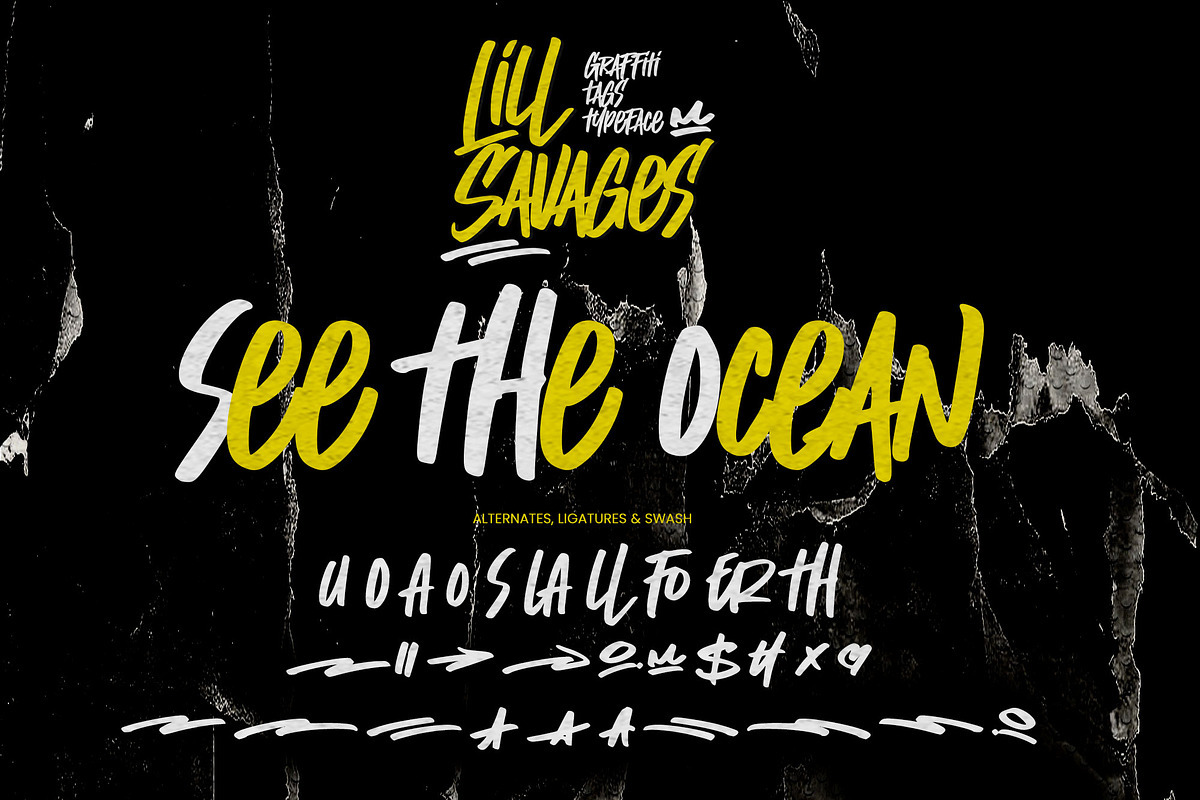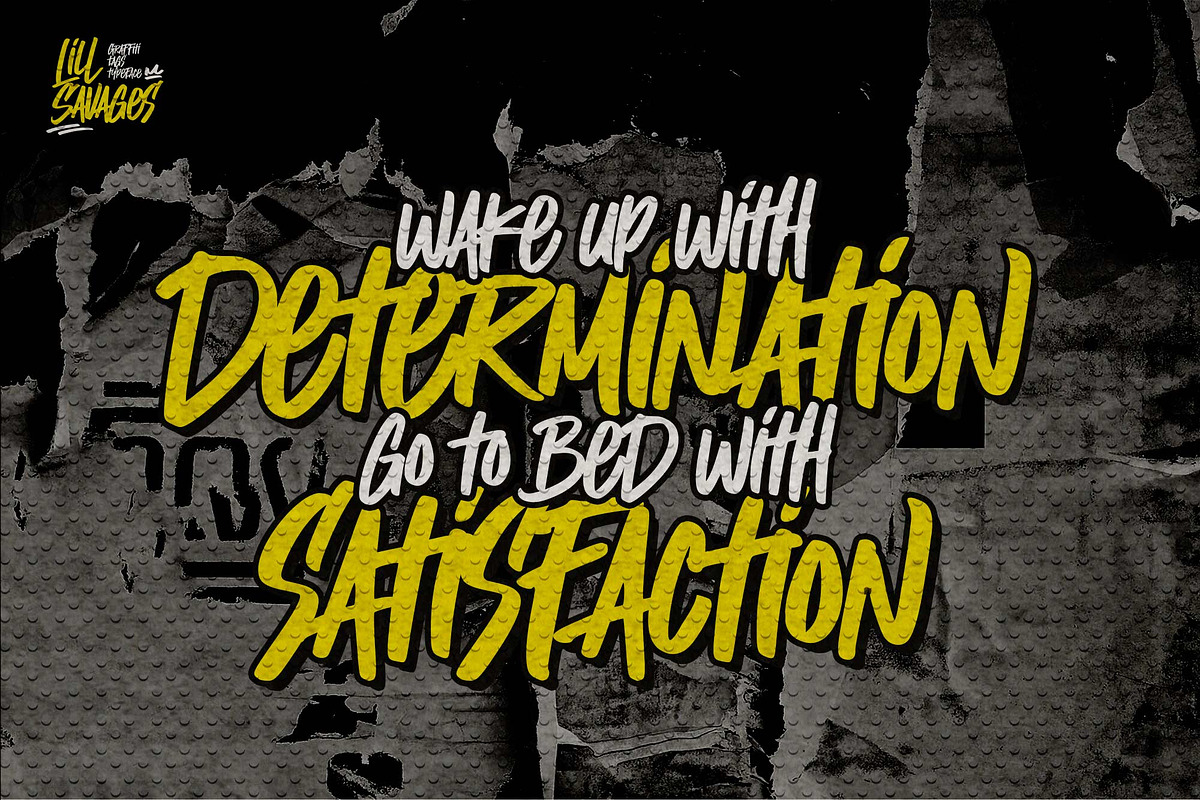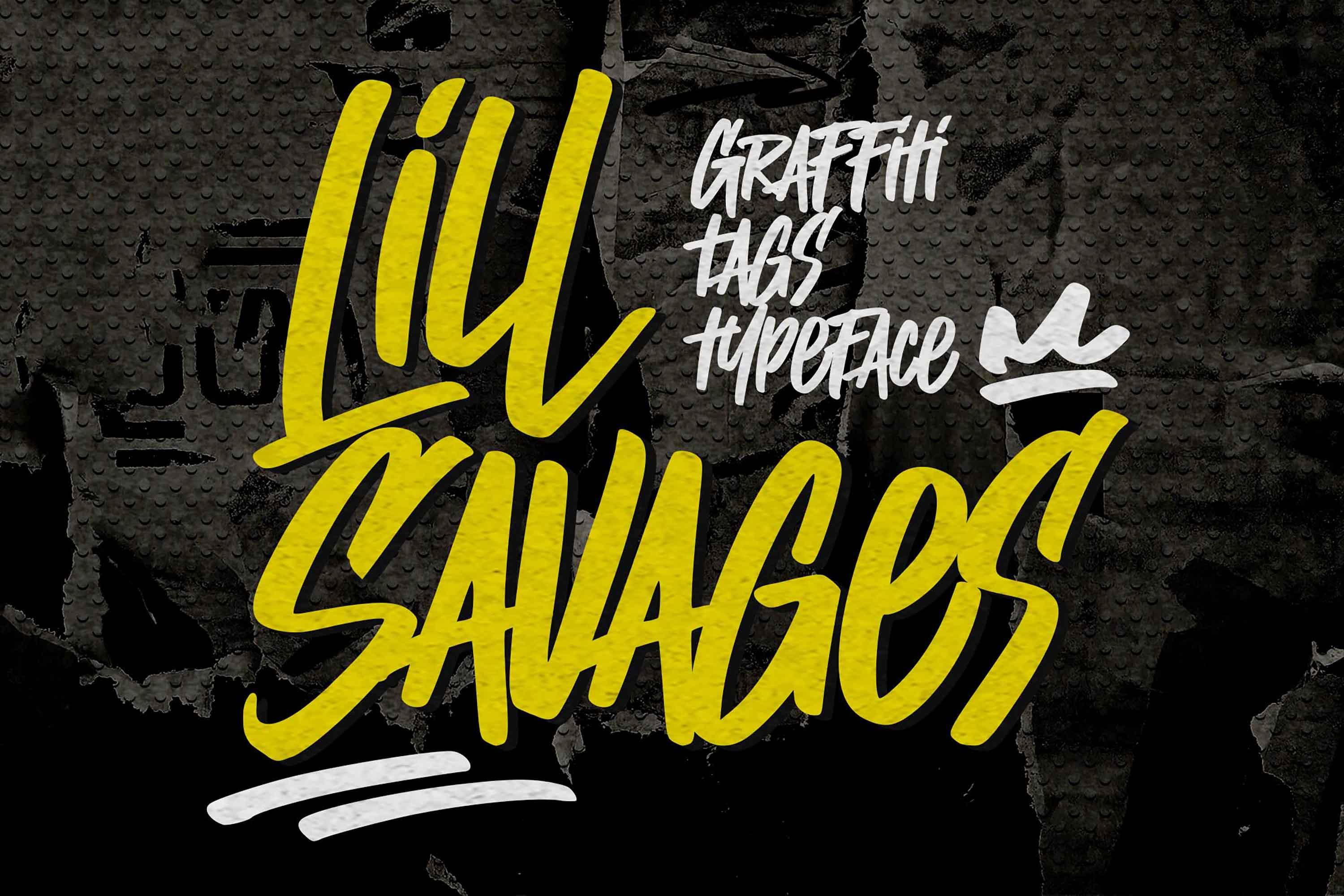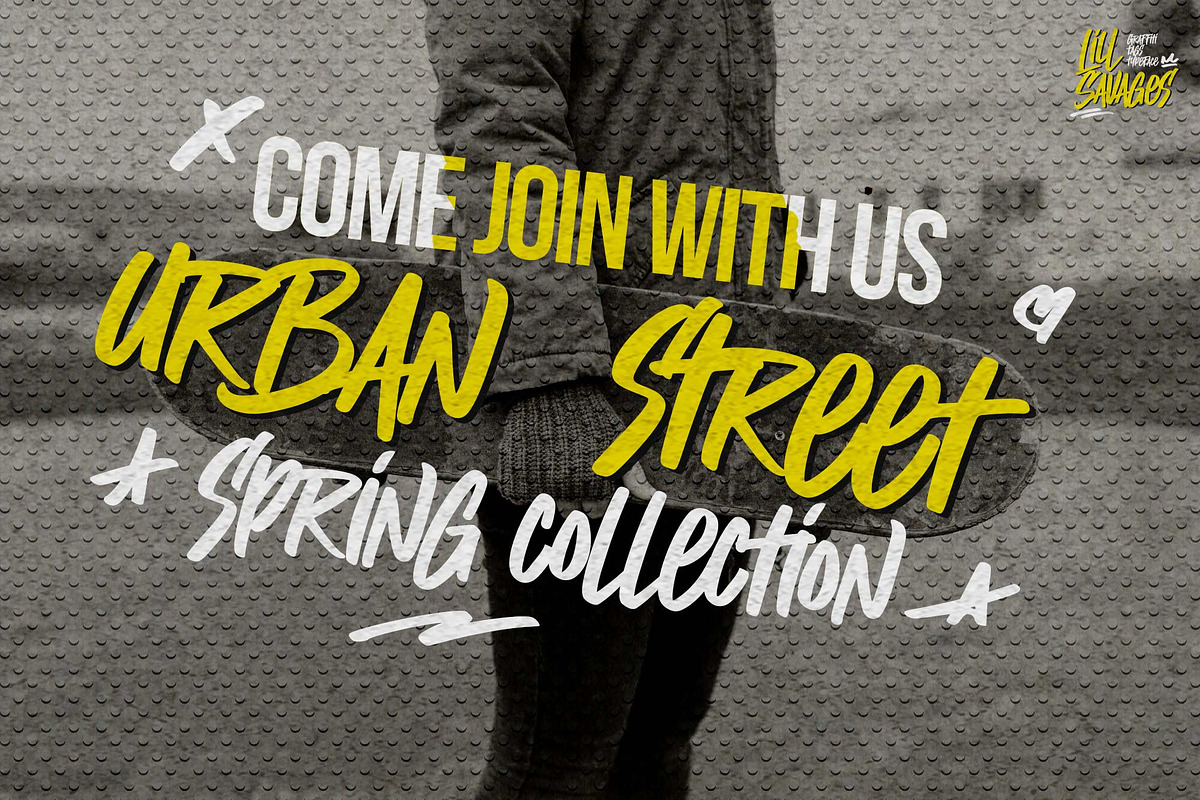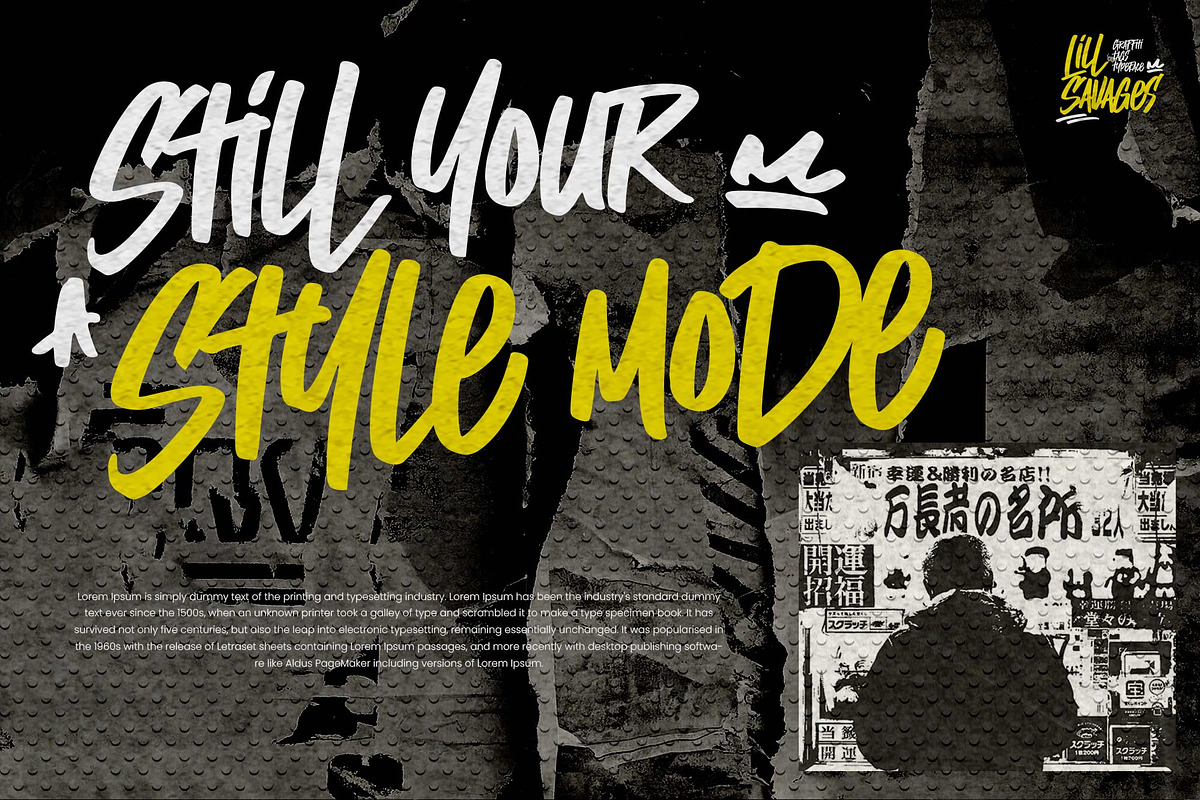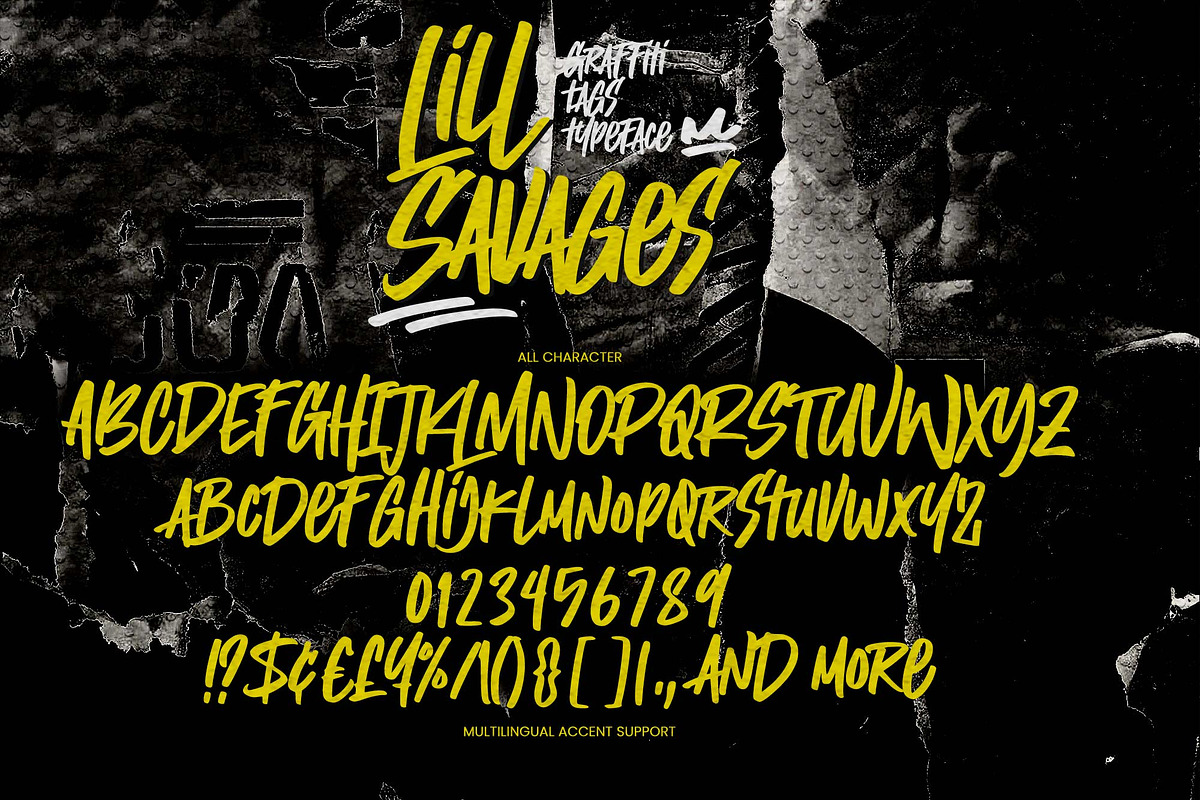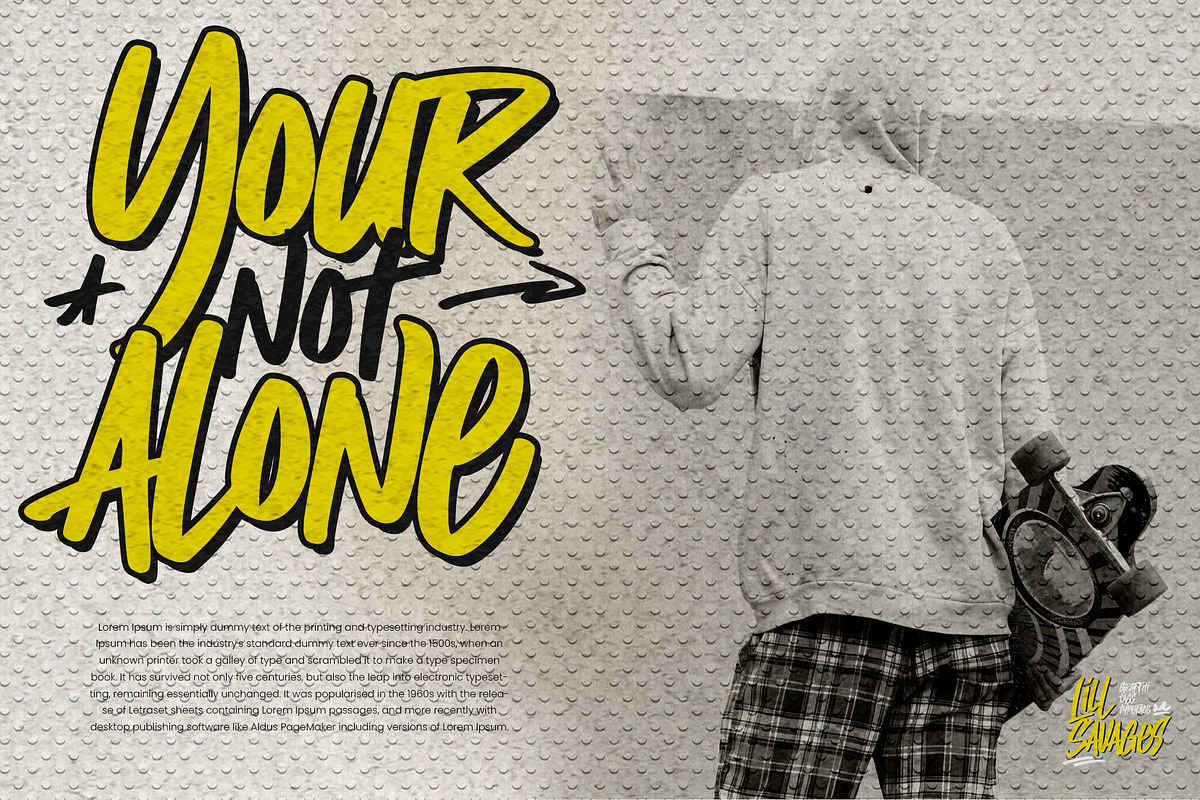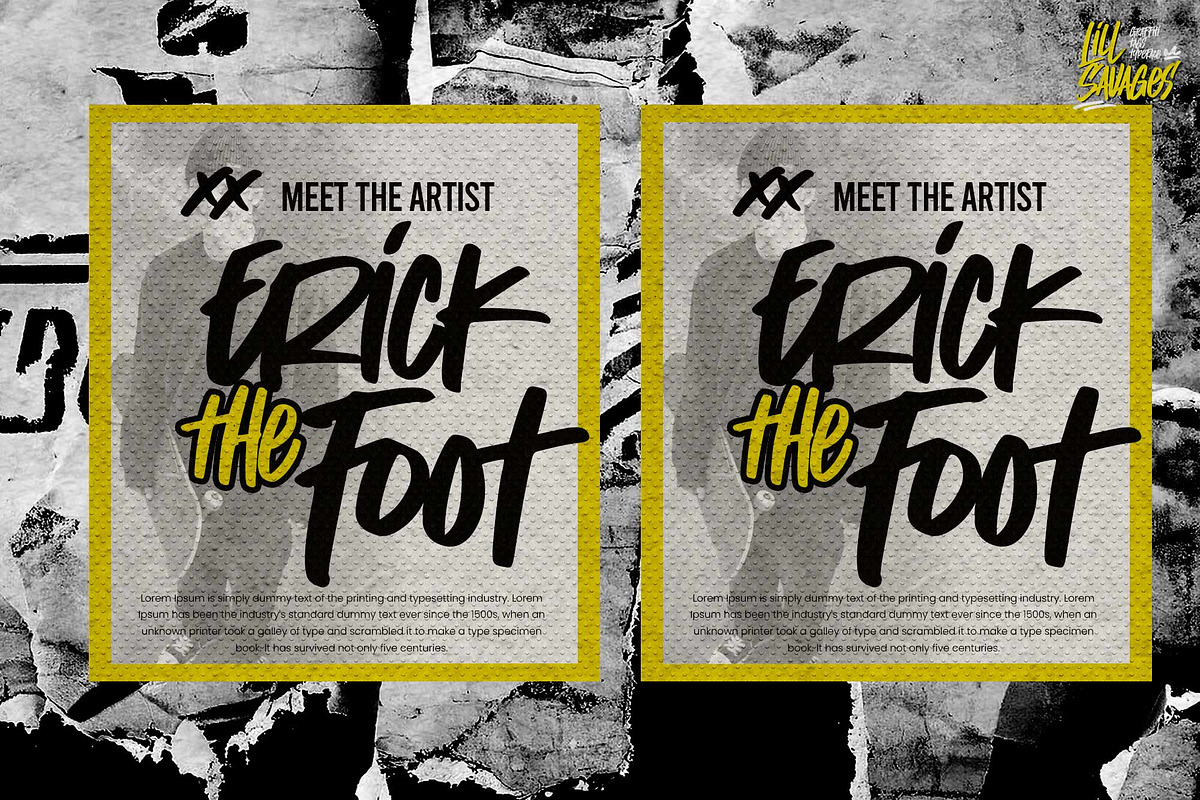
Lill Savages – Graffiti Typeface
Hello Everyone, introduce our new product Font Lill Savages This Is Graffiti Tags Typeface. This is a Textured Natural Style and graffiti style. This font Lill Savages is great for your next creative project such as logos, printed quotes, invitations, cards, product packaging, headers, Logotype, Letterhead, Poster, Design this font is great for your creative projects such as watermark on photography, and perfect for logos & branding, invitation,advertisements,product designs, stationery, wedding designs,label ,product packaging, special events or anything that need handwritting taste. That is has charming, authentic and relaxed characteristic more natural look to your text.